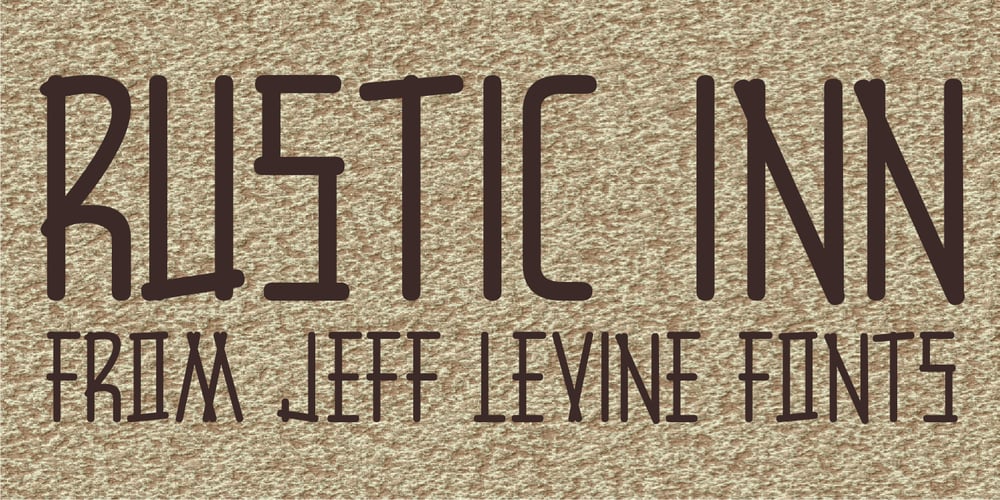
Rustic Inn JNL Font Family was designed by Jeff Levine and published by Jeff Levine. Rustic Inn JNL contains 1 styles and family package options. Rustic Inn JNL comes from hand lettering on a vintage piece of sheet music entitled “My Cabin of Dreams”.